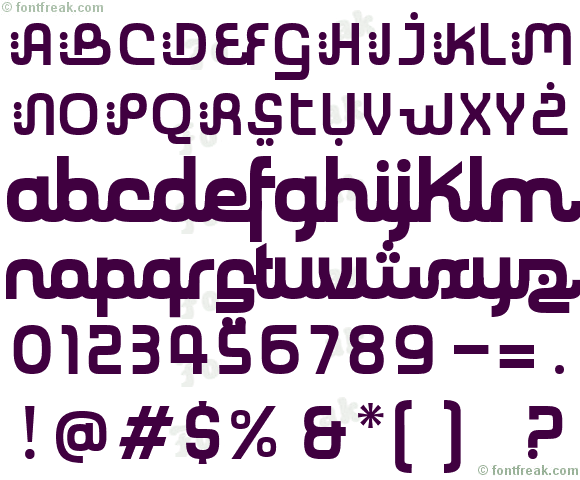
Selamat Ramadhan Regular
About Selamat Ramadhan Regular
Selamat Ramadhan Regular, designed by MJType, is a unique decorative font that captures the essence of celebration and cultural richness. This font is characterized by its playful yet elegant stroke weight, offering a bold presence that stands out in various applications. The design features rounded edges and a harmonious balance between thick and thin strokes, creating an inviting look. The spacing is well-considered, ensuring that each letter connects seamlessly while maintaining readability, making it perfect for both headlines and body text.
This font is particularly well-suited for use in festive invitations, capturing the spirit of occasions such as Ramadan celebrations, community gatherings, and cultural events. Additionally, it can elevate the aesthetic of restaurant menus, providing an appealing visual element that complements culinary offerings. Graphic designers can also utilize Selamat Ramadhan Regular for creating eye-catching posters, greeting cards, and social media graphics, particularly those aimed at audiences interested in cultural themes. Small business owners looking to add a unique touch to their branding materials will find this font a valuable asset.
What truly sets the Selamat Ramadhan Regular font apart is its ability to blend modern design with traditional influences, creating a visual experience that is both contemporary and culturally relevant. This font not only adds character to any design but also communicates a message of celebration and togetherness. Don't miss out on the Selamat Ramadhan Regular font free download to enrich your creative toolkit.